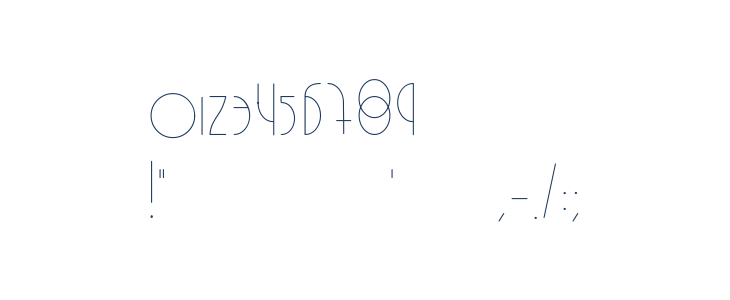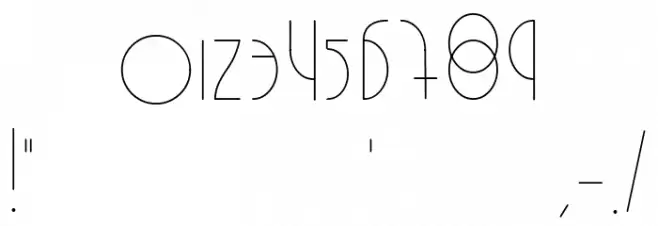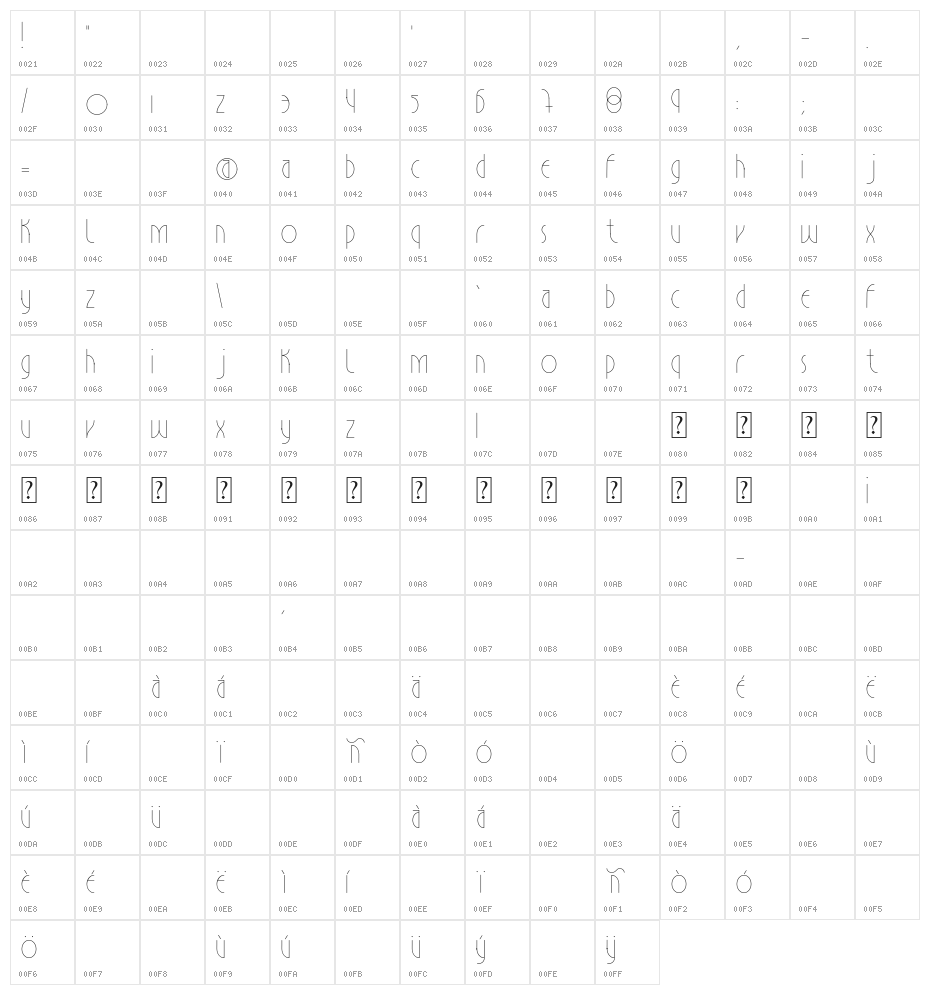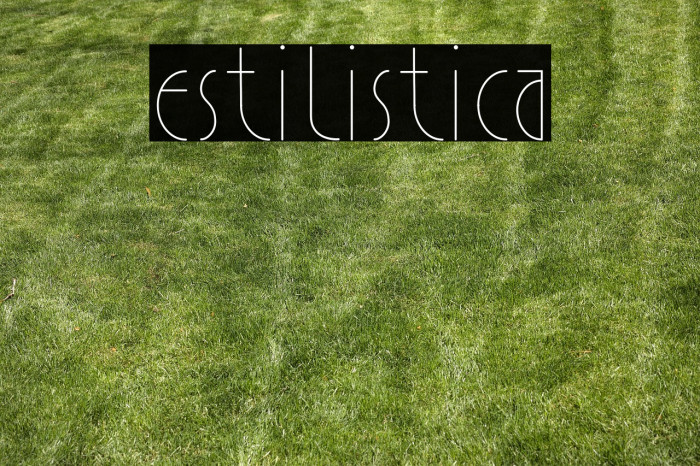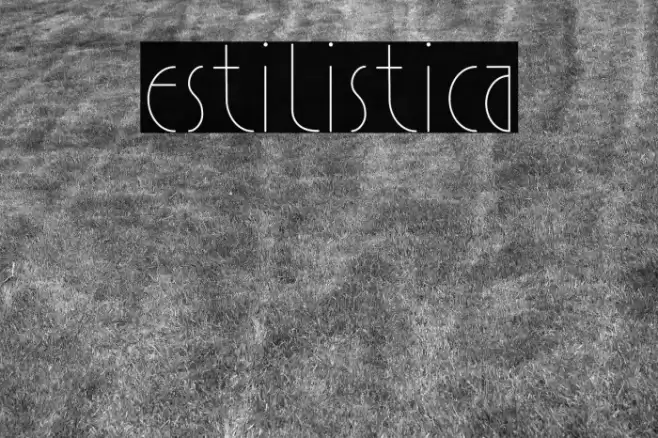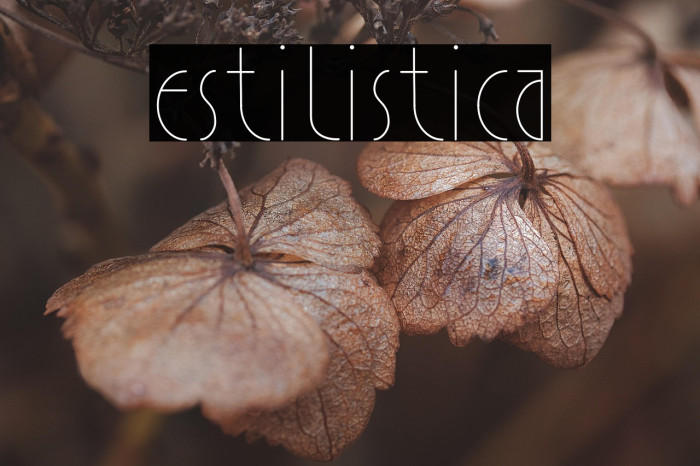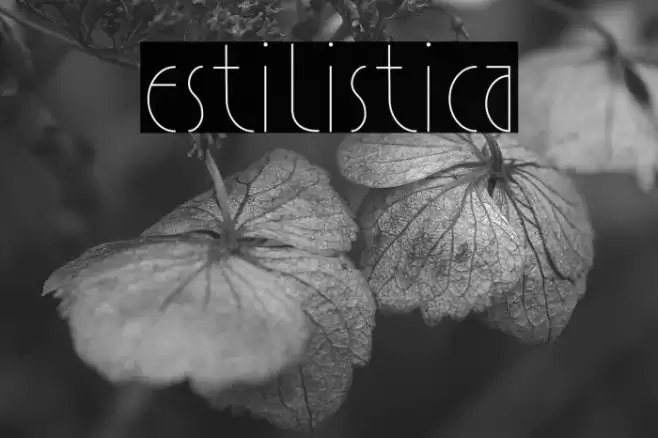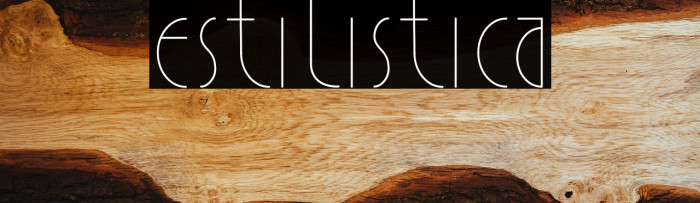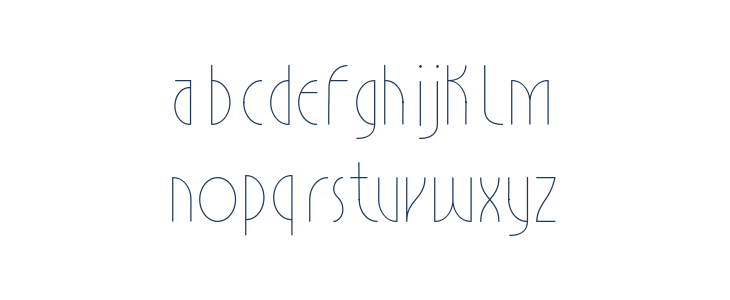
Estilistica Font
Estilistica Description
This font features a sleek, modern design with elongated, thin strokes that give it an elegant and sophisticated appearance. The characters are tall and narrow, with a consistent line weight that adds to its minimalist aesthetic. The uppercase and lowercase letters share a similar height, creating a uniform look across the text. The numerals and special characters maintain the same slender style, ensuring cohesion throughout. This font is ideal for projects that require a contemporary and stylish touch, such as fashion branding, luxury product packaging, or high-end editorial design.
| Use Case | Logos, Headlines |
| Proposed Projects | Fashion branding, luxury product packaging, high-end editorial design. |